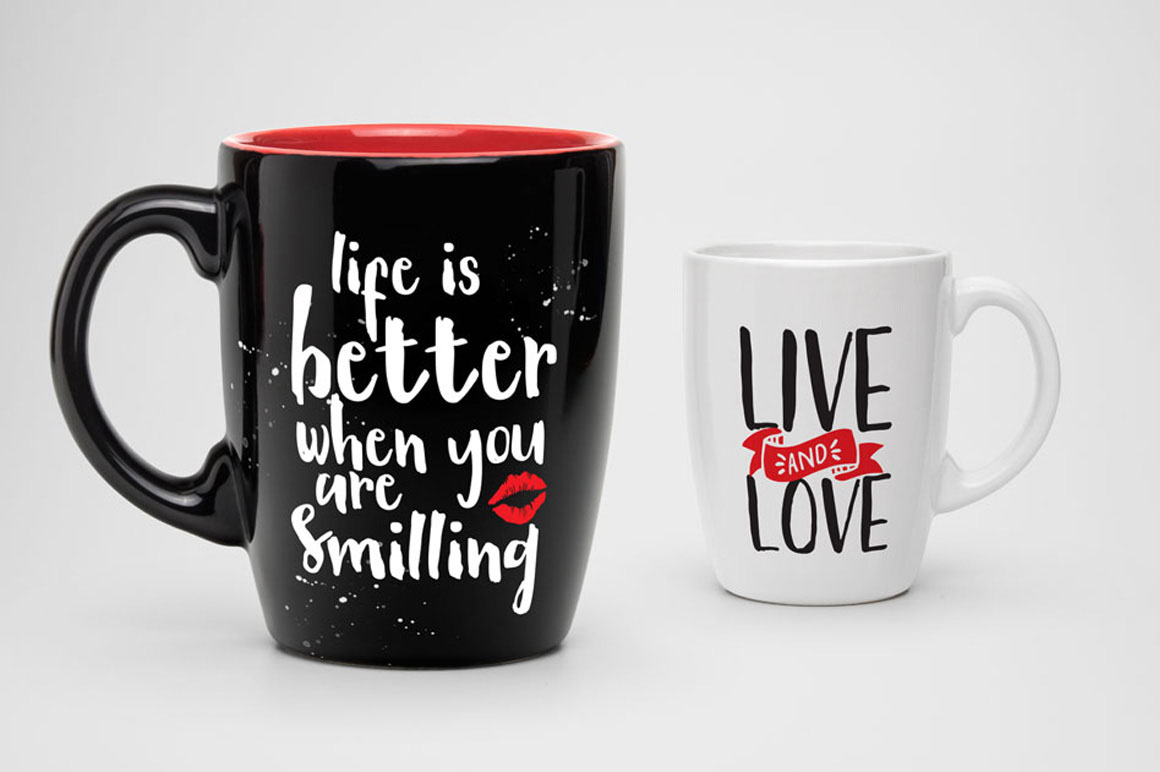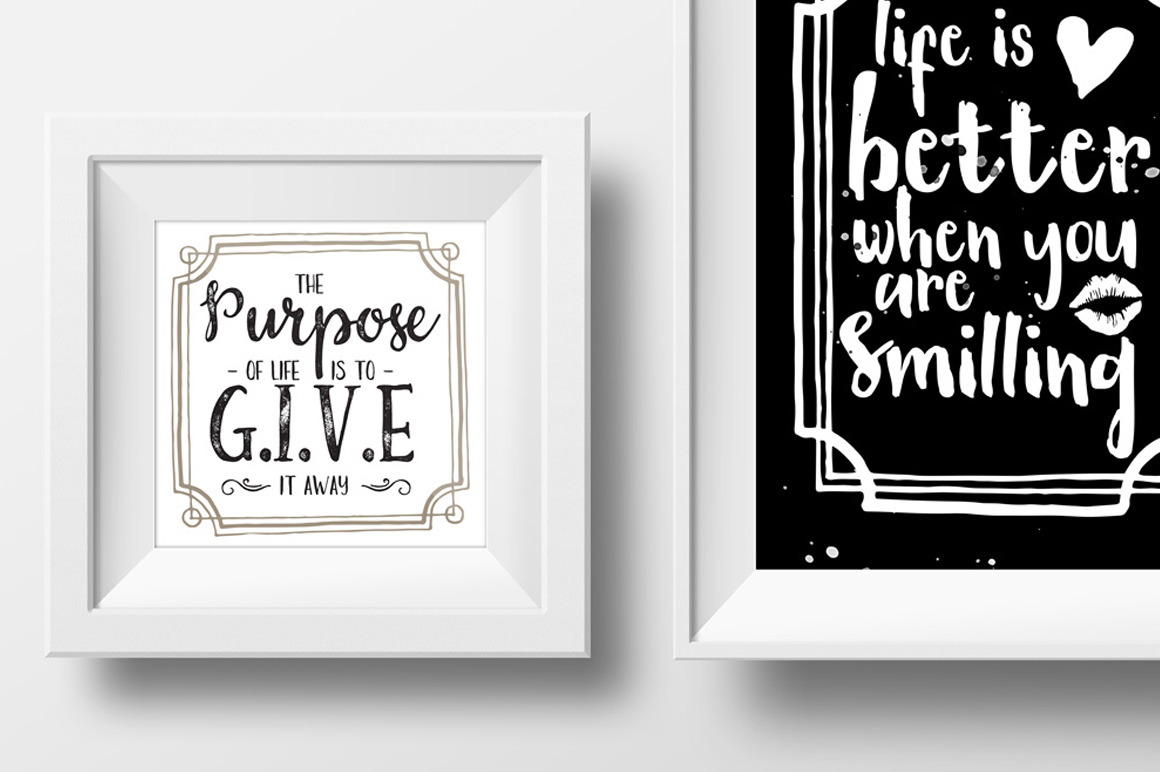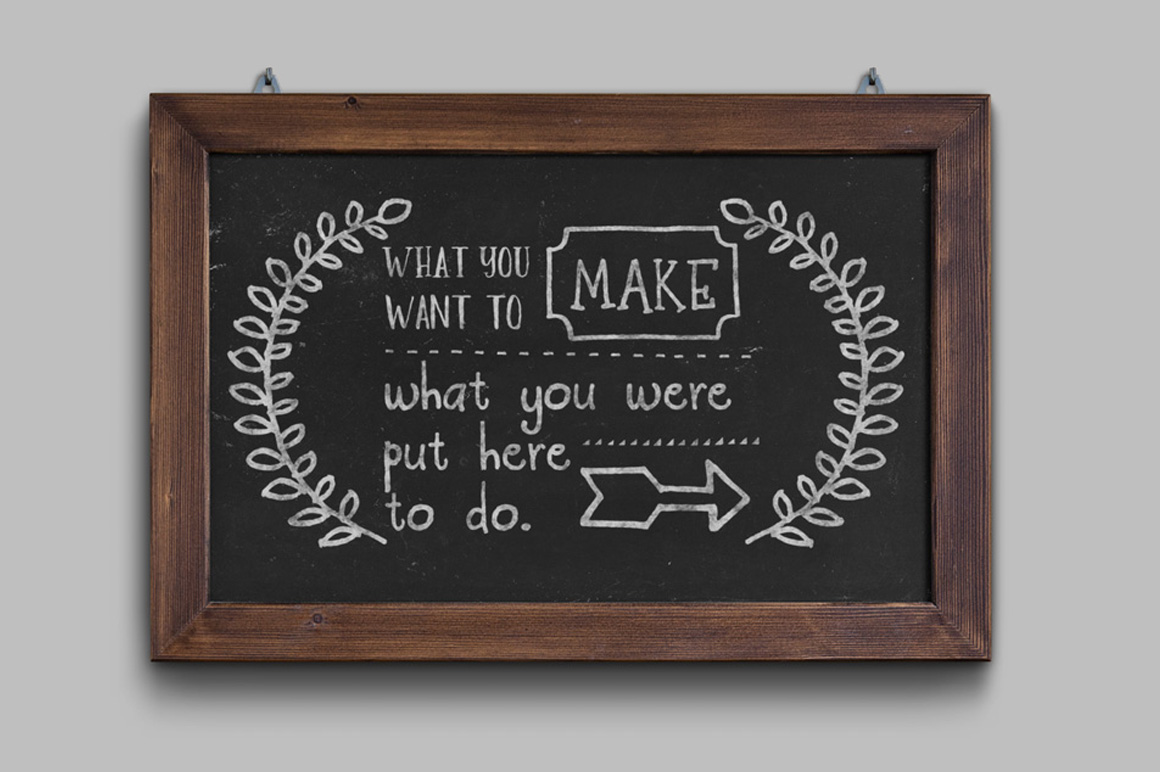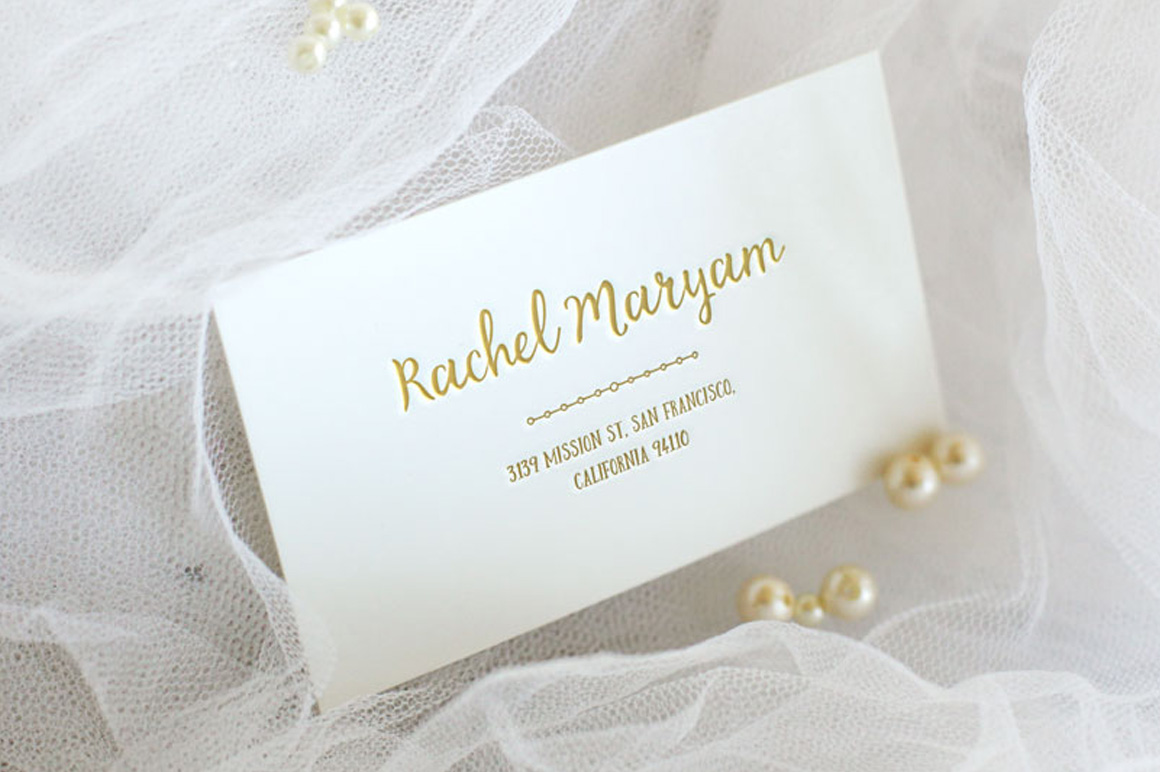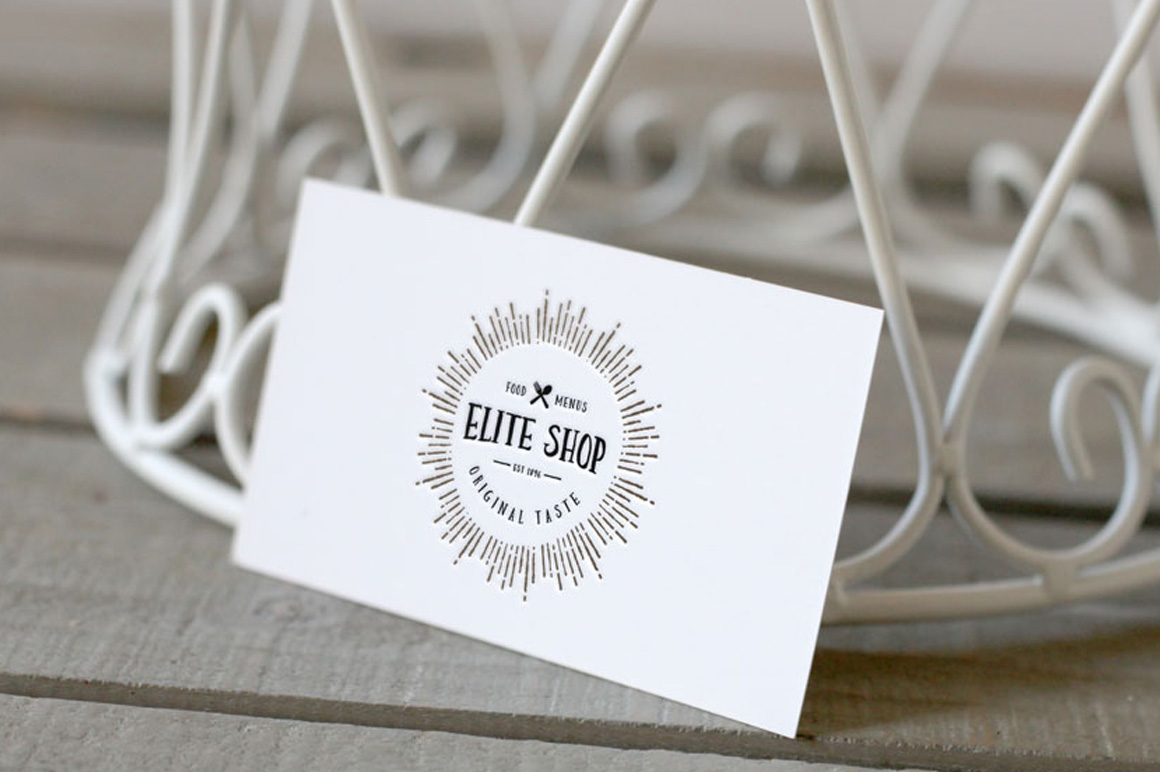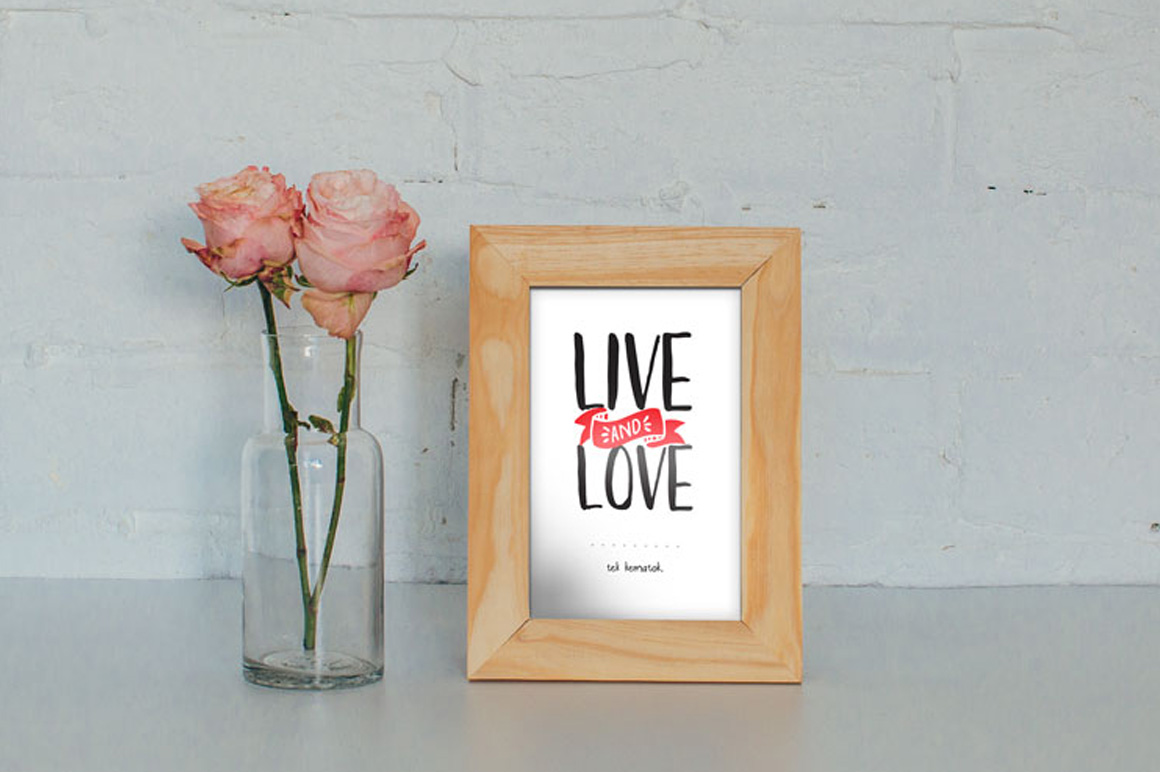
The Ultimate Font Pack for Creative Minds: A Game-Changer for Designers, Crafters, and Hobbyists
I’ll never forget the time I was working on a project, pouring my heart and soul into it, and then suddenly, I hit a roadblock. I was struggling to find the perfect font to match my design vision. The client was specific about the style they wanted, and I just couldn’t seem to find a font that fit the bill. That’s when I discovered the Font Pack Font, a diverse collection of six fonts in various styles that has since become a staple in my design toolkit.
So, what makes this font pack so special? Let’s dive into the good stuff! 😊
- ✨ Variety and versatility: With six fonts in different styles, you’ll have plenty of options to choose from, making it easy to find the perfect fit for your project.
- ✅ Pairing perfection: These fonts are designed to pair perfectly with one another, so you can mix and match to create a unique look that’s all your own.
- 💡 OpenType features and glyphs: The fonts in this pack are rich in OpenType features, glyphs, and stylistic alternates, giving you even more creative control.
Of course, no font pack is perfect, and there are a few small quirks to be aware of:
- 🤔 Limited language support: While the fonts in this pack are well-suited for English and other Western languages, support for non-Western languages may be limited.
- ⚠️ Some fonts may not work well at very small sizes: As with any font, some styles may not render well at very small sizes, so be sure to test them out before committing to a specific font.
The Font Pack was designed with the creative hobbyist in mind. Our team of designers wanted to create a versatile, affordable font solution that would help artists, crafters, and designers bring their ideas to life. With a mix of classic and modern styles, this pack is perfect for anyone looking to elevate their design game.